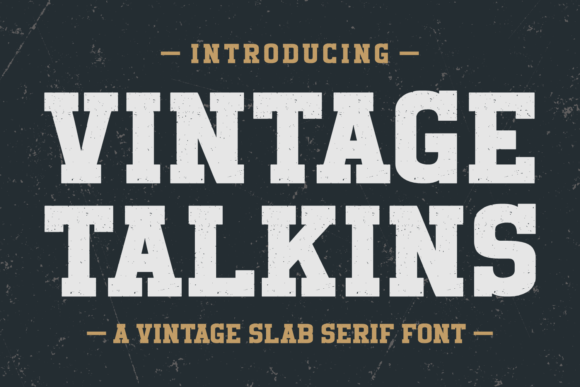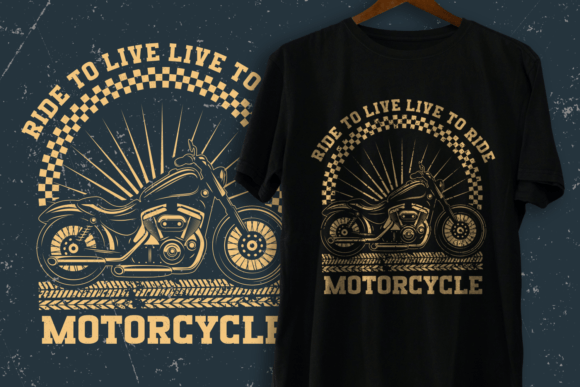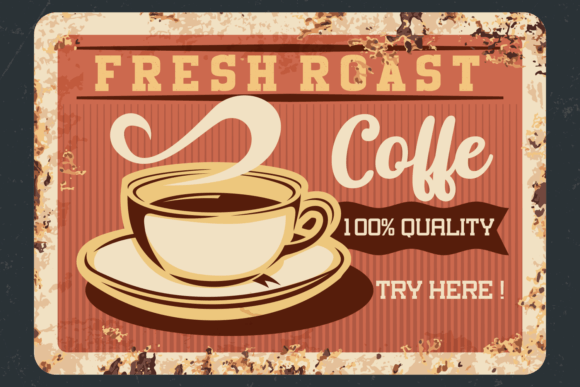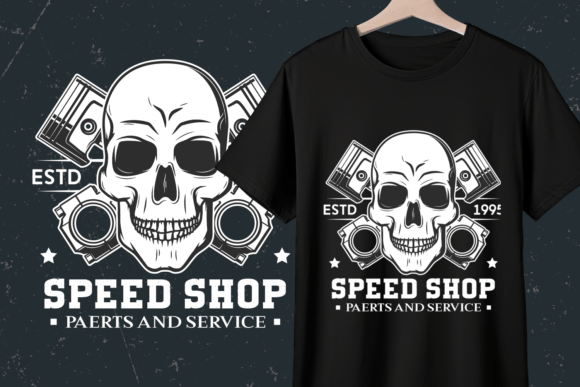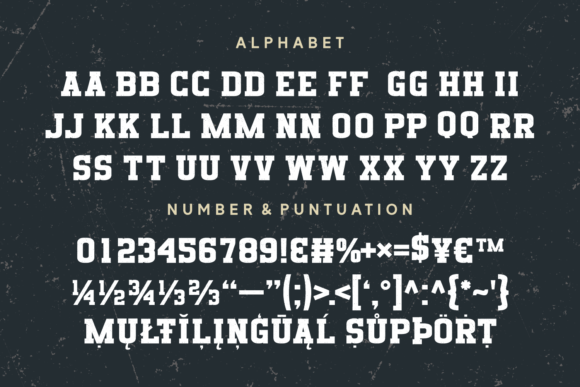
Vintage Talkins Font
About Vintage Talkins Font
Vintage Talkins is a charming sans-serif font that captures the essence of a bygone era. With clean lines and a touch of nostalgia, this typeface exudes a timeless elegance reminiscent of vintage signage and classic print materials. Perfect for adding a touch of retro flair to your designs, Vintage Talkins brings a sense of warmth and character to any project, making it an ideal choice for those seeking a classic and refined aesthetic.